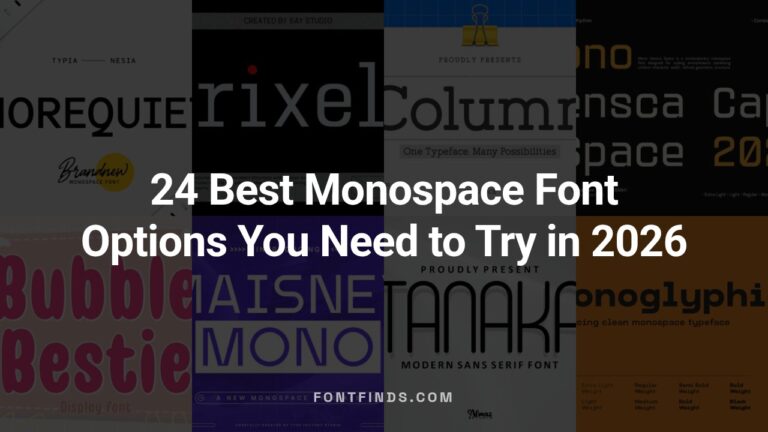
27 Clean Minimalist Monospace Fonts for Code Editors and UI Mockups in 2026
I curated 27 minimalist monospace fonts suited for coding, UI mockups, and tight editorial layouts. The picks emphasize clear punctuation, consistent spacing, and legible numerals for fixed-width text.